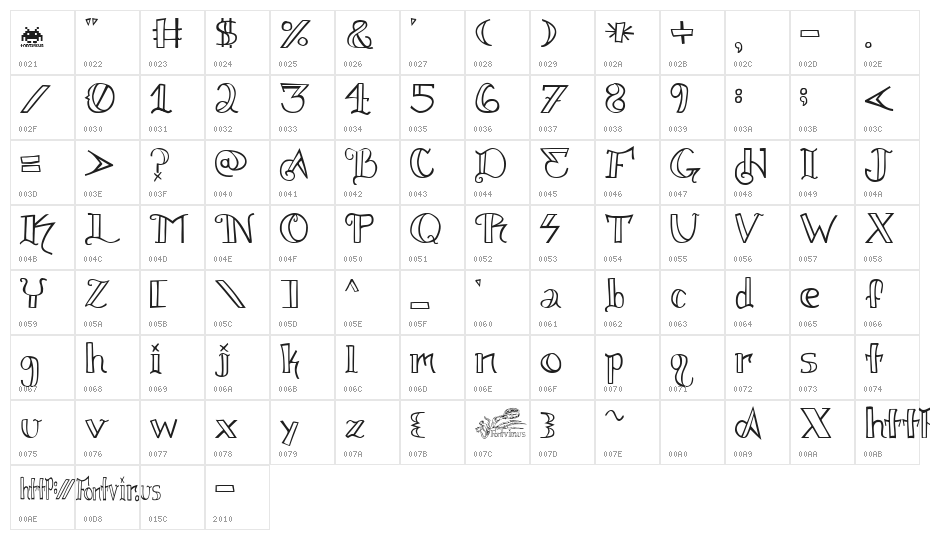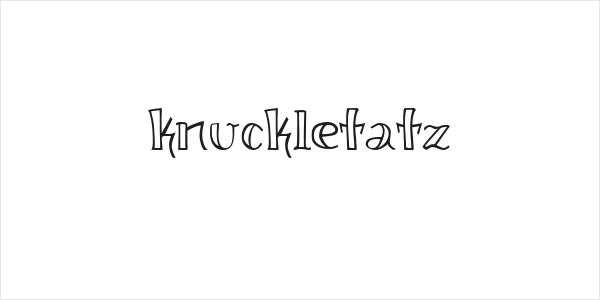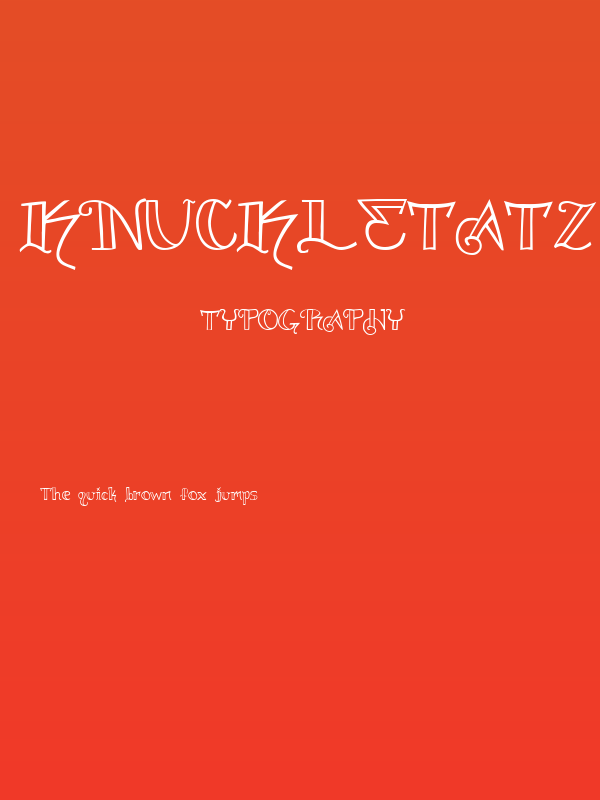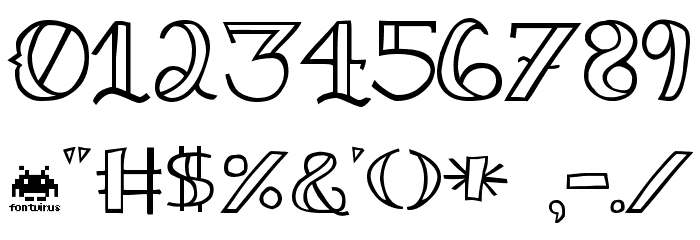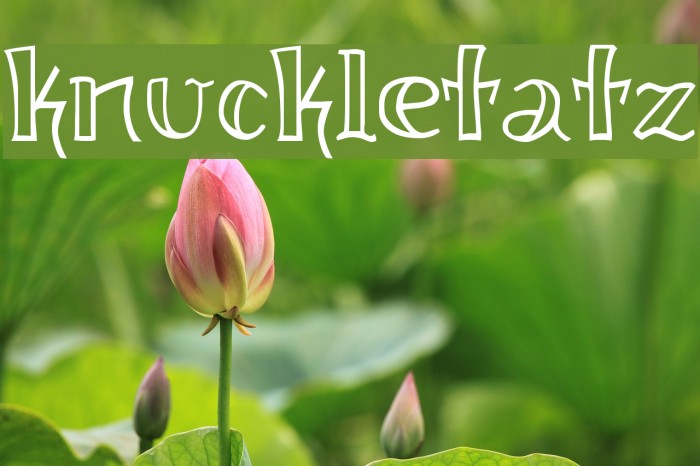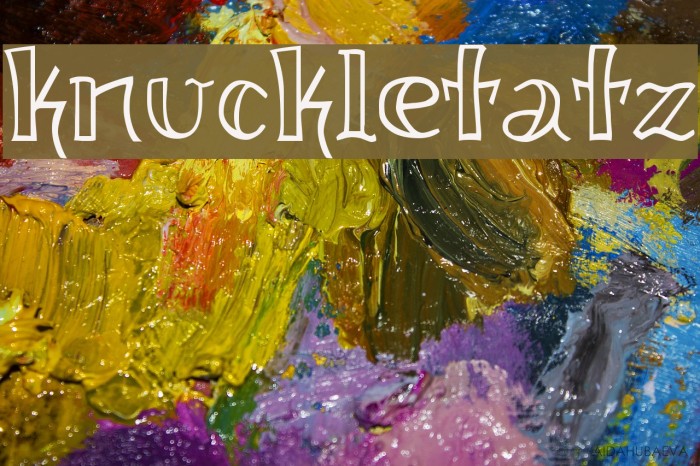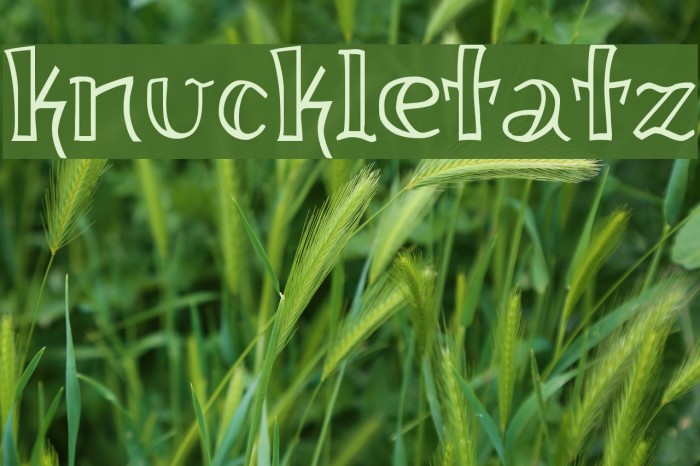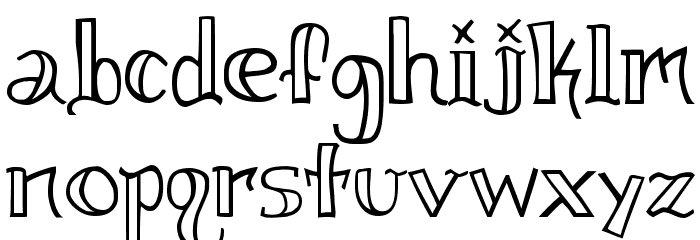
knuckletatz Font
knuckletatz Description
This font features a unique and bold style with a decorative flair, combining elements of traditional tattoo artistry with modern design. The uppercase letters are characterized by intricate curves and sharp angles, giving them a distinctive, edgy appearance. The lowercase letters maintain a similar aesthetic, with some characters featuring additional flourishes and accents. The numerals are stylized to match the overall theme, with a consistent weight and balance. Special characters are creatively designed, adding to the font's versatility. This font is ideal for projects that require a strong visual impact and a touch of rebellious elegance.